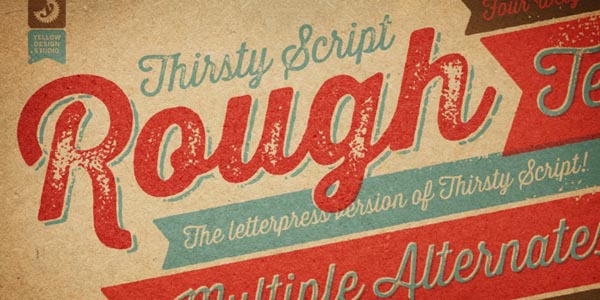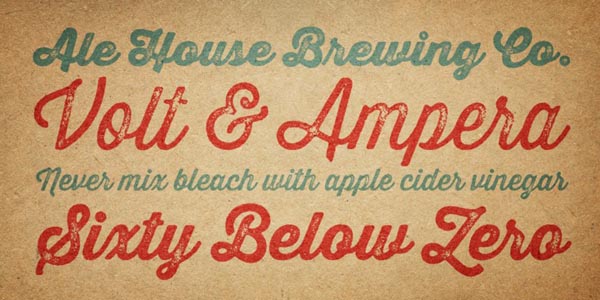
Thirsty Rough, a script typeface from Yellow Design Studio with a textured vintage stye.
The Thirsty Rough font family from Yellow Design Studio is a worn and grungy version of the Thirsty Script font family with a texture that creates the effect of an old letterpress printing style. Thirsty Script comes with four alternate character versions in any weight, which makes it a highly customizable font family. The weights ranging from light to black. It’s a perfect display and headline font for vintage inspired retro design and lettering.
Thirsty Rough is equipped with the following typographic features: stylistic alternates, ligatures, old style numerals, and multiple language support. To allow some extra customization, the team of Yellow Design Studio added a set of matching textures to the family, for free!